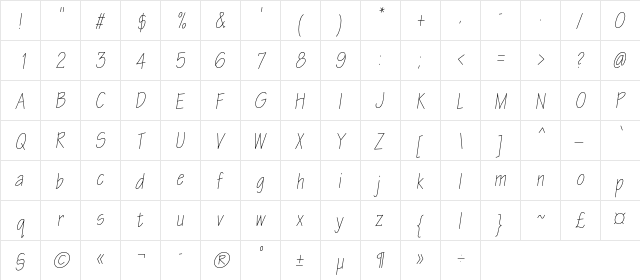
EskizTwoLightCondC Italic Font Preview
Design Context for EskizTwoLightCondC Typeface
EskizTwoLightCondC offers clean, dependable letterforms without strong stylistic allegiance, making it a practical choice for designers who need flexibility. The slanted form adds forward momentum and visual energy. The delicate stroke weight brings airiness and refinement to layouts. The condensed width makes it efficient for tight spaces without sacrificing legibility.
Pro Tip: Use EskizTwoLightCondC for emphasis, pull quotes, and subheadings where its slanted energy can add rhythm to the layout.